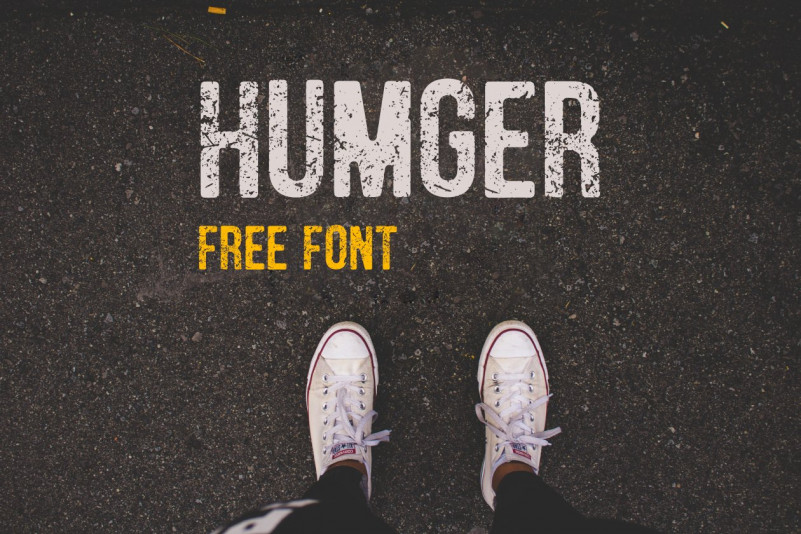
Humger Free Font
Introduce to you a new Display font. Humger Font designed and shared by graphicpear. Humger is a free grunge vintage uppercase narrow textured typeface for your personal and commercial projects.